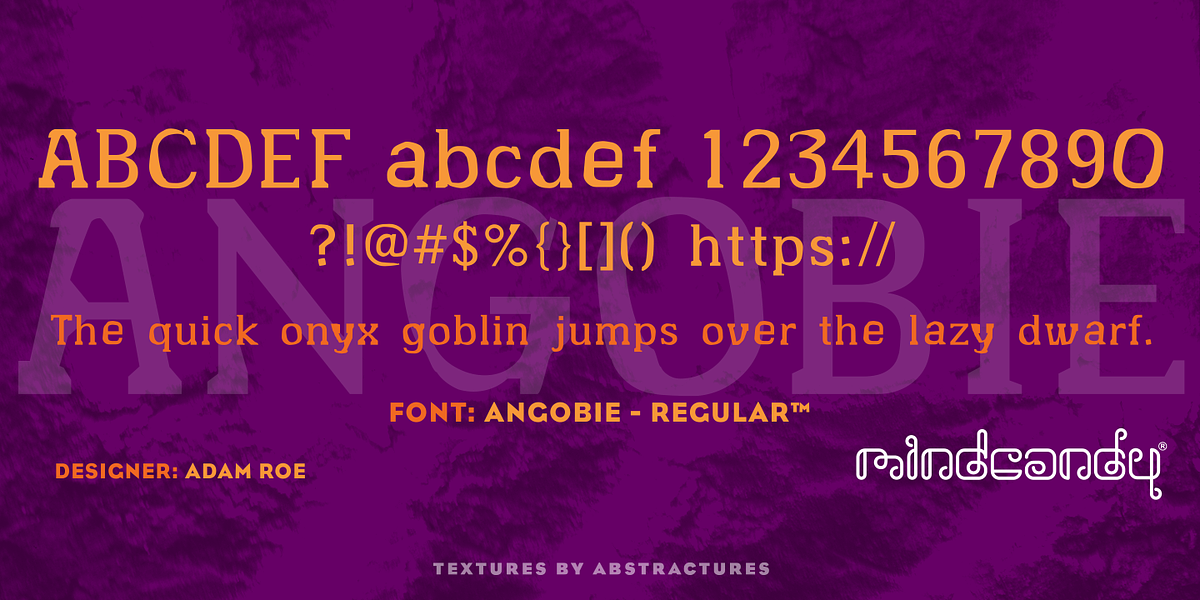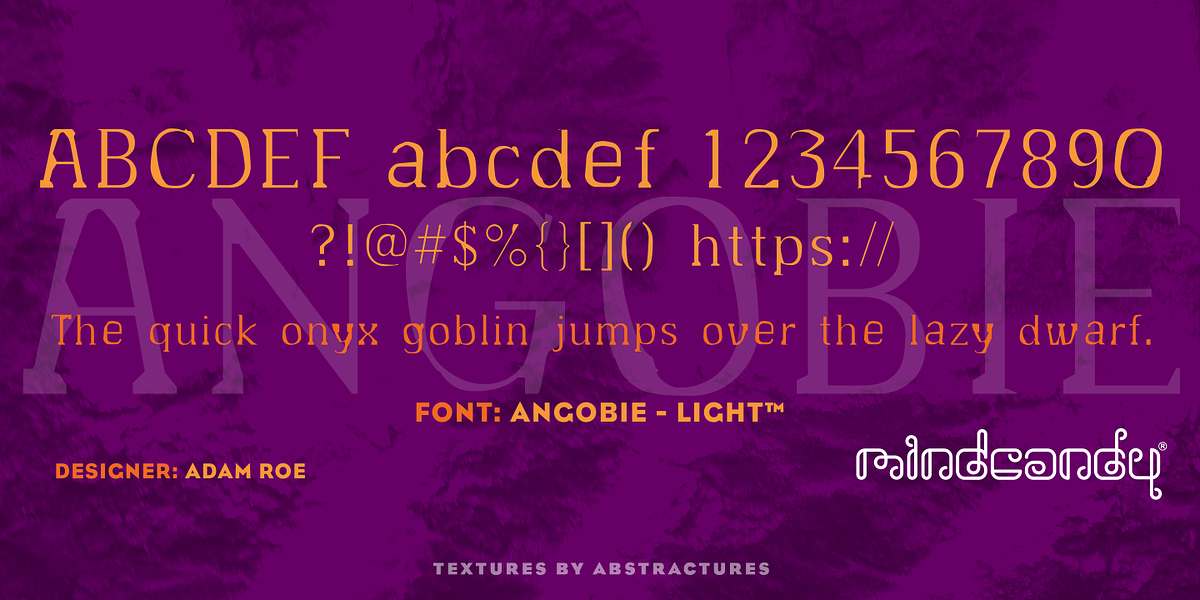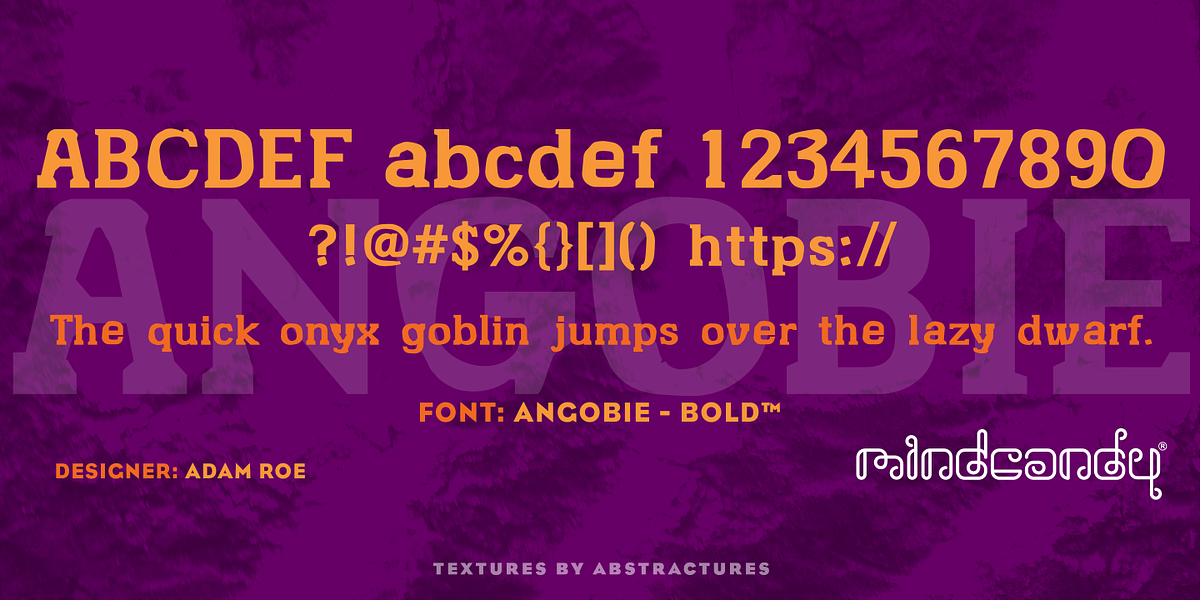
Angobie™
Angobie is a grunge-style slab serif font designed by Adam Roe. It comes in three weights: light, regular, and bold. The font's rough aesthetic makes it ideal for grabbing attention in headlines and body text.